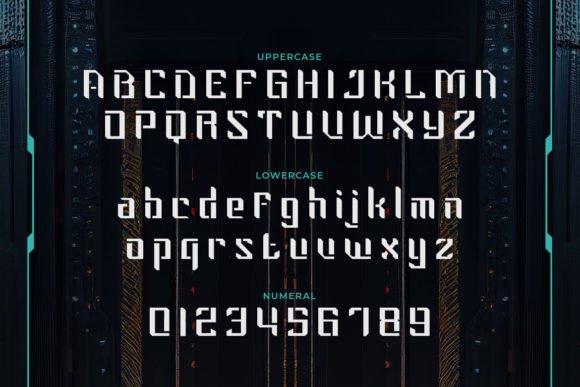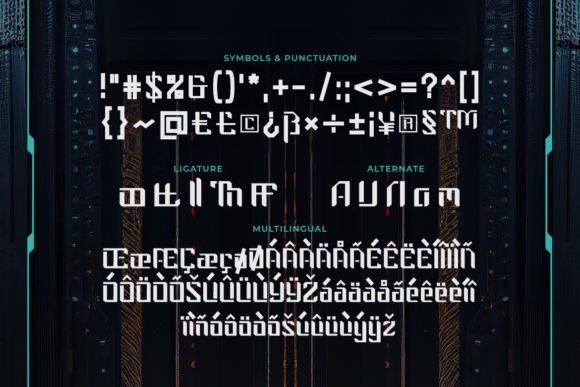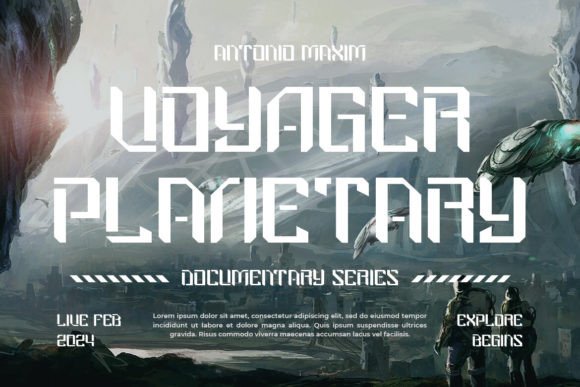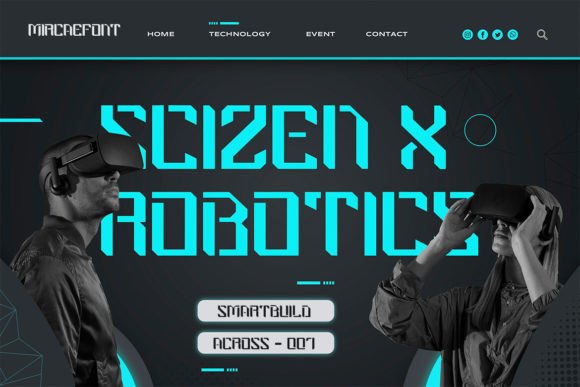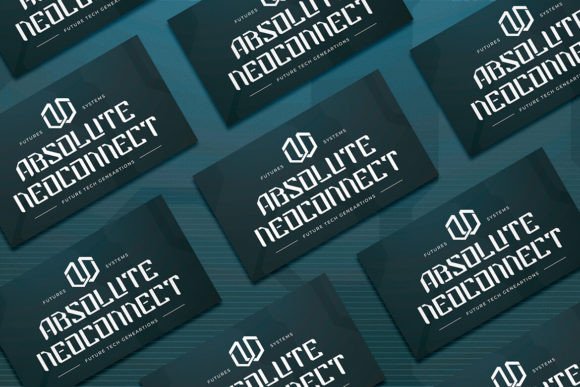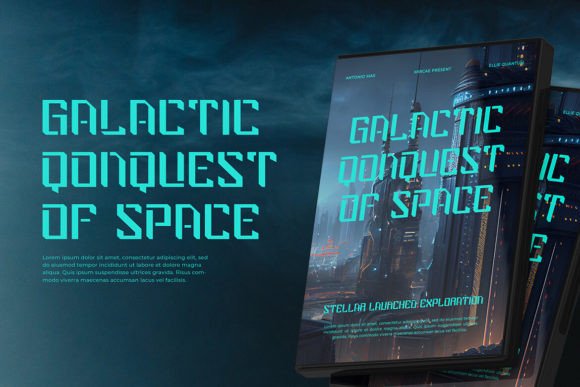
Introduction to Mircae Font
Introducing “Mircae” – a display futuristic typeface that embodies innovation, sleekness, and forward-thinking design.
With its sharp lines and geometric forms, “Mircae” offers a modern and futuristic aesthetic, perfect for branding, technology-related projects, posters, and more Embrace the cutting-edge appeal of “Mircae” as it effortlessly enhances your designs with its bold presence and futuristic vibe.